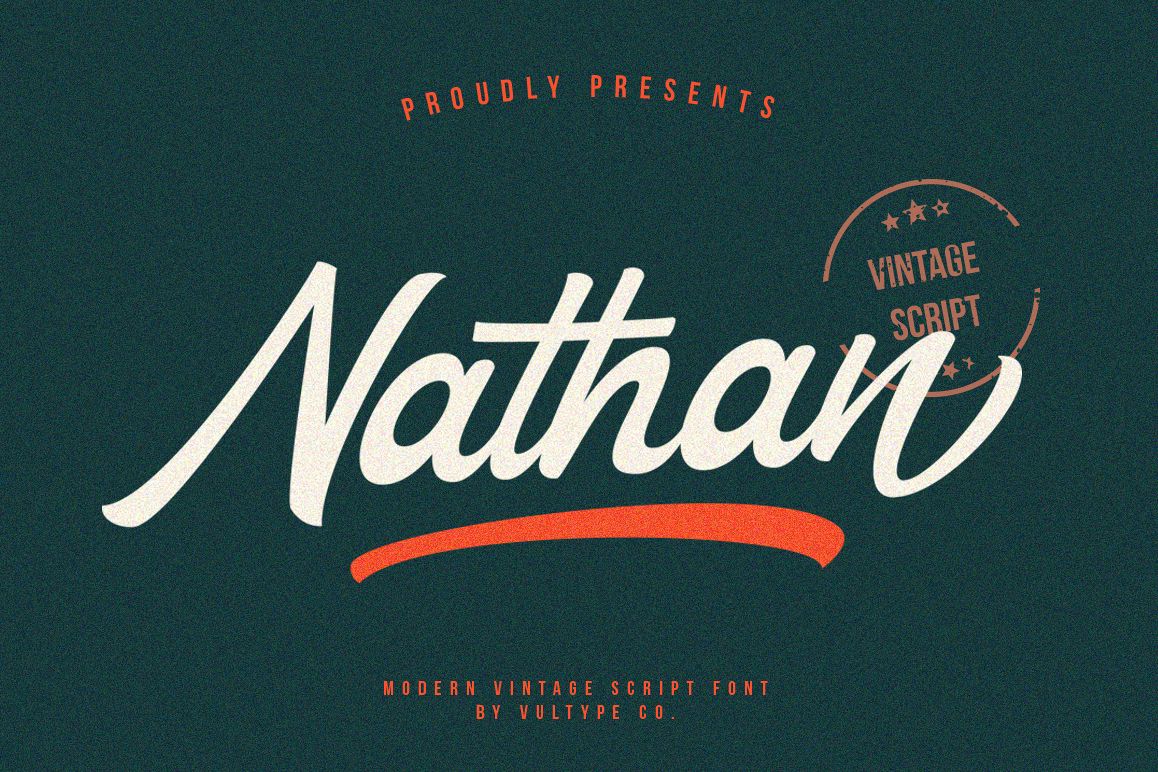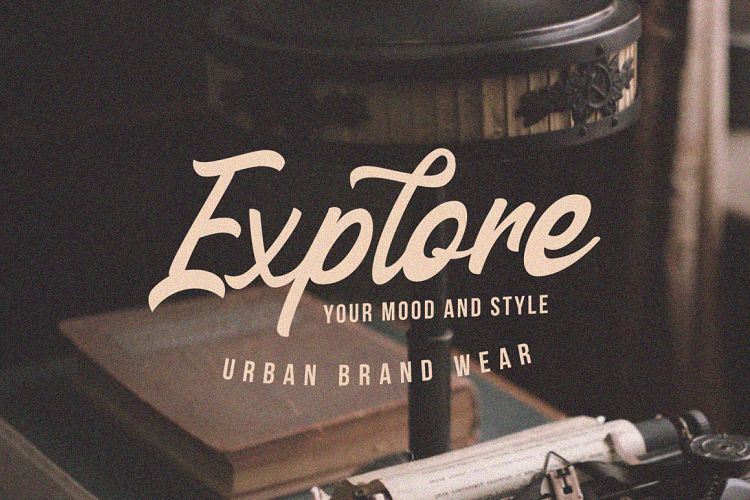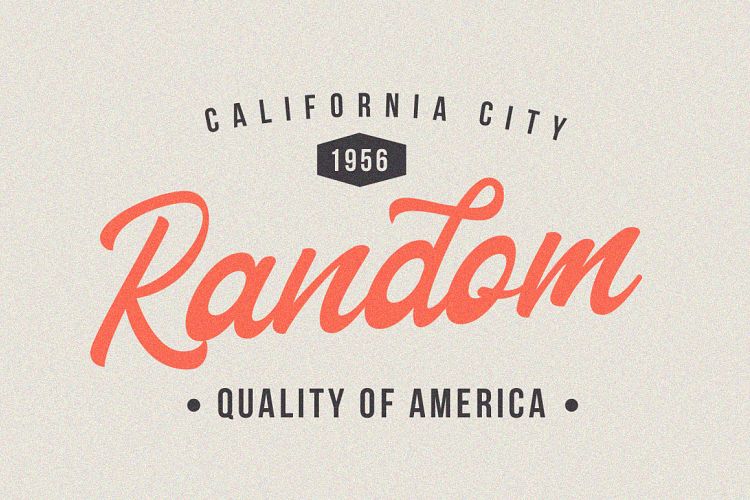
Free Nathan Vintage Script Font
Nathan Vintage Script is a commercial-use font inspired by modern vintage and retro styles, with a font duo that combines two trends (Modern Sans Serif caps and Vintage Script). You must have seen this combination much more often in the design world.
This typeface works perfectly to convey a vintage aesthetic. All characters have an imperfect shape that gives this typeface a natural look.
It is perfect for creating traditional-style logos, labels, package designs, lettering for t-shirts, stationery, social media posts, advertisements, product packaging, product designs, labels, photography, watermarks, and more.
OpenType features (such as ligatures and alternates) help make your lettering more interesting.
Nathan is great for logotype, branding design, vintage logo design, digital lettering arts, retro, brush font, script font, bold script, Vintage lettering, and any vintage design needs.
Preview of the Free Nathan Vintage Script Font
Why Choose Nathan Vintage Script?
- Create complete typography designs with uppercase, lowercase, numbers, and punctuation included.
- Add unique character to your lettering with built-in OpenType ligatures and alternates.
- Perfect for logos, branding, packaging, merchandise, and social media graphics.
Does the font include ligatures and alternate characters?
Yes. OpenType features such as ligatures and alternates are included to help create more unique lettering styles.
Does the font support multiple languages?
Yes. Nathan Vintage Script supports multiple Latin-based languages, including English, Spanish, Portuguese, Italian, Dutch, Swedish, and more.